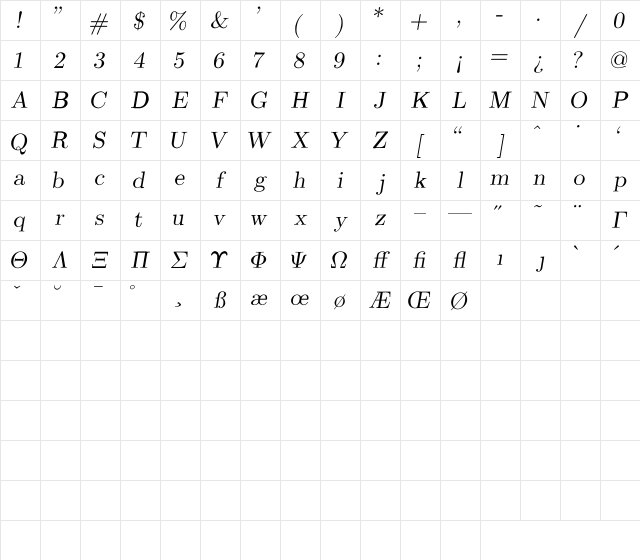
CM_Roman Slanted
Style: Slanted
CM_Roman Slanted
Design Context for CM_Roman
CM_Roman is a composed and adaptable typeface that performs quietly and consistently across a wide range of design contexts. The slanted form adds forward momentum and visual energy.
Pro Tip: Use CM_Roman for emphasis, pull quotes, and subheadings where its slanted energy can add rhythm to the layout.